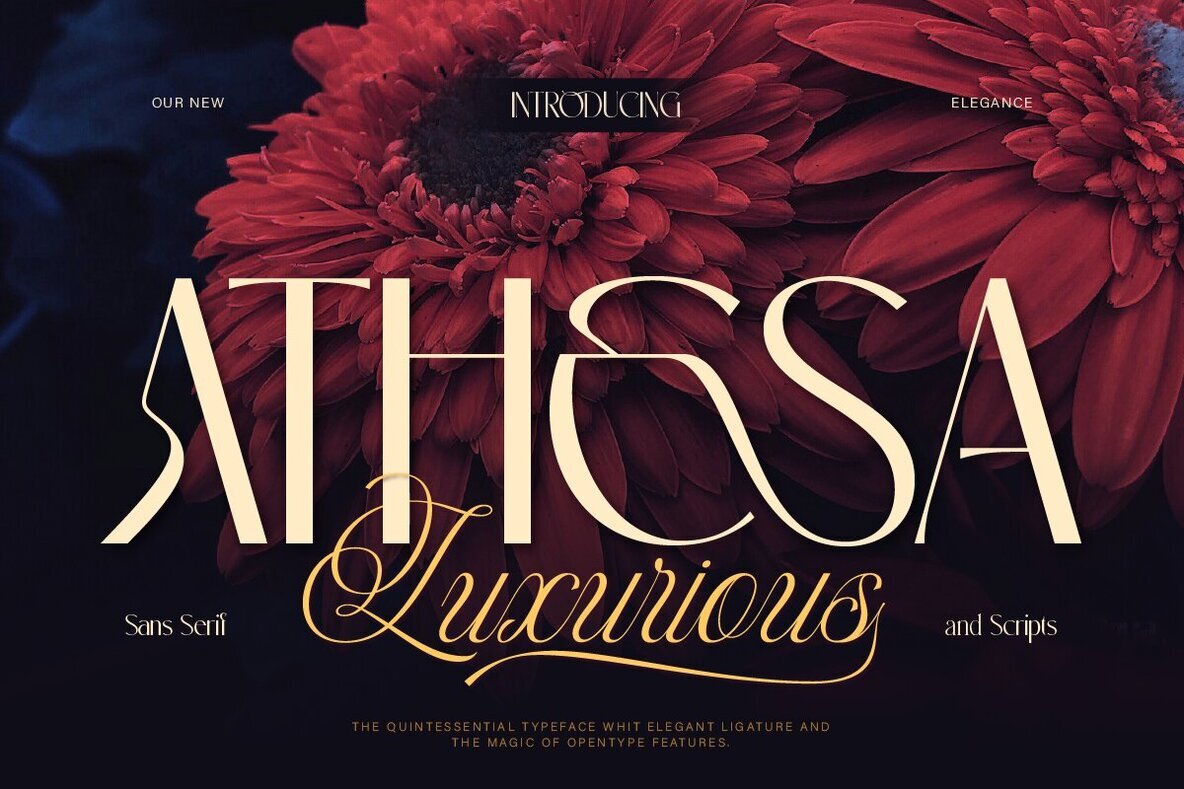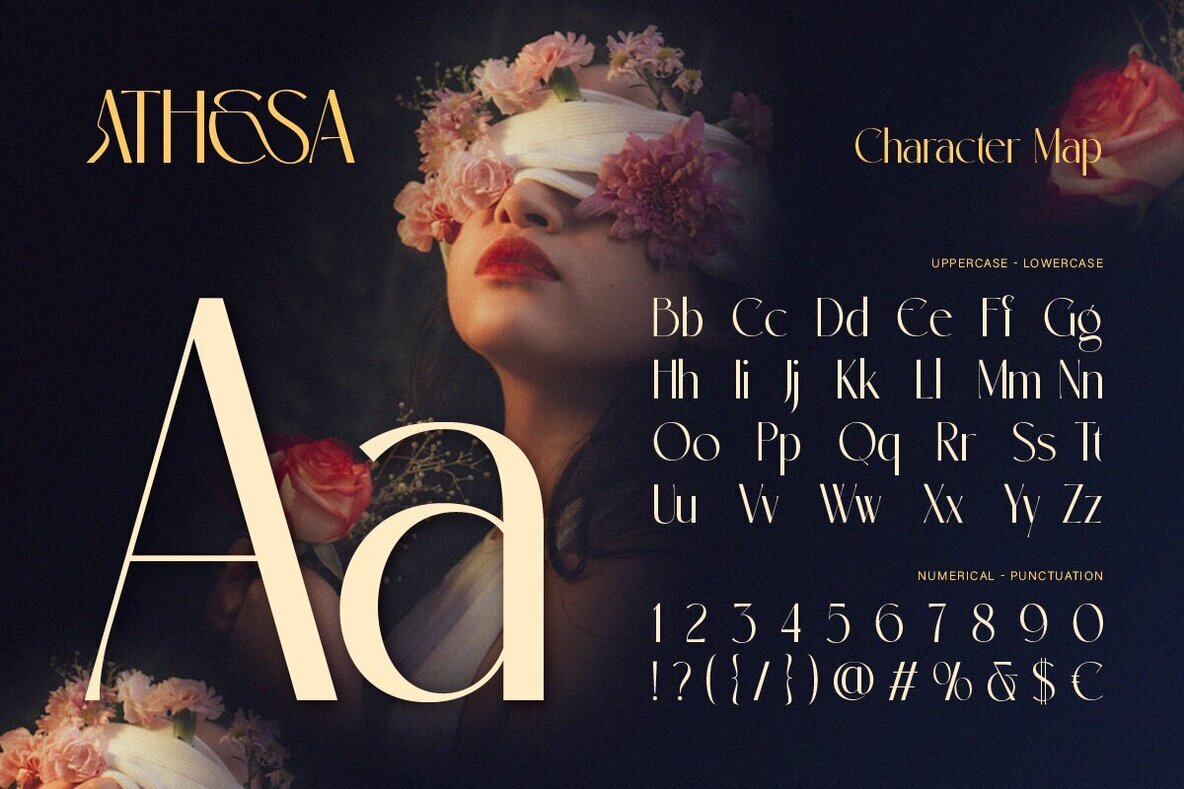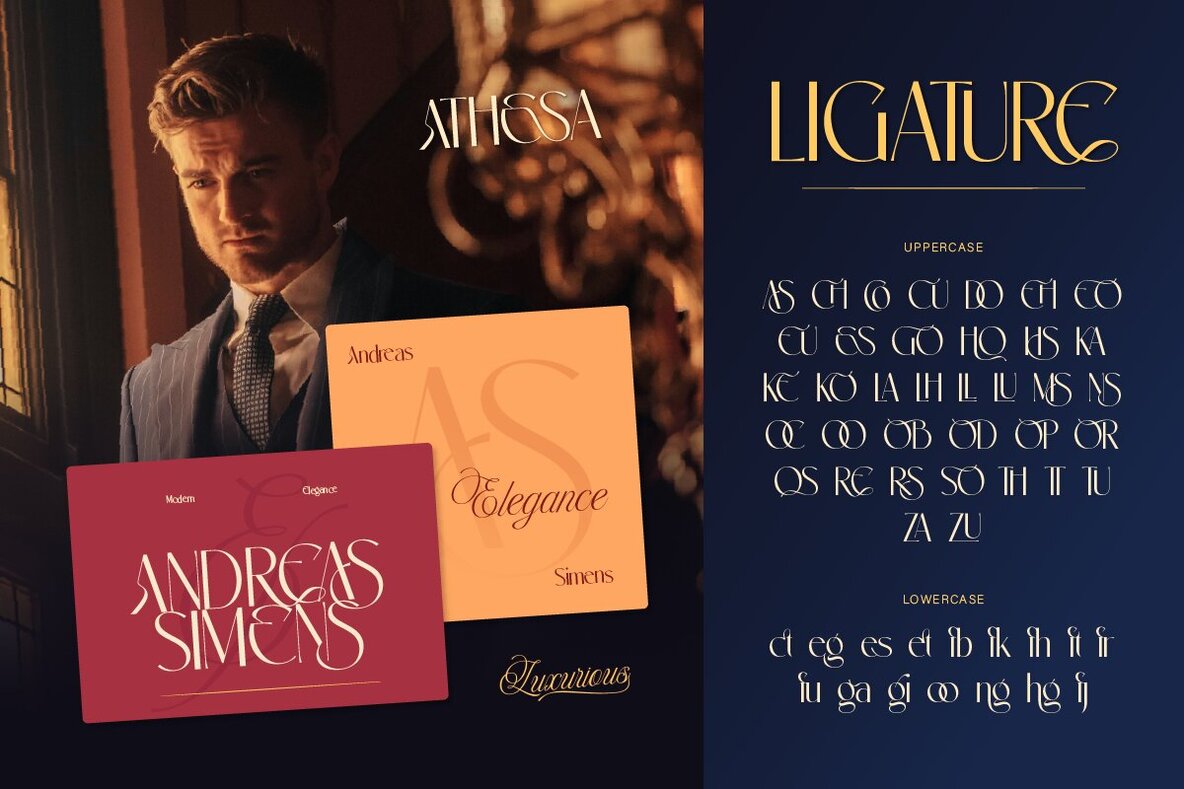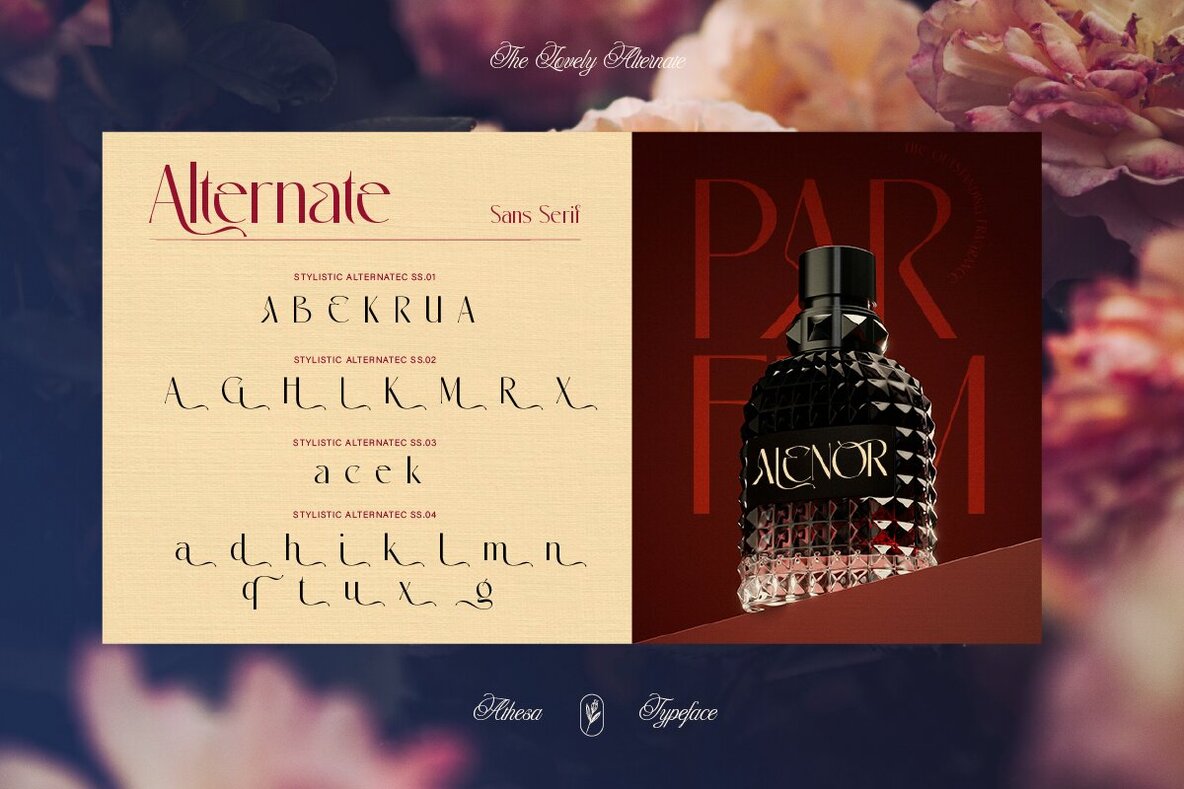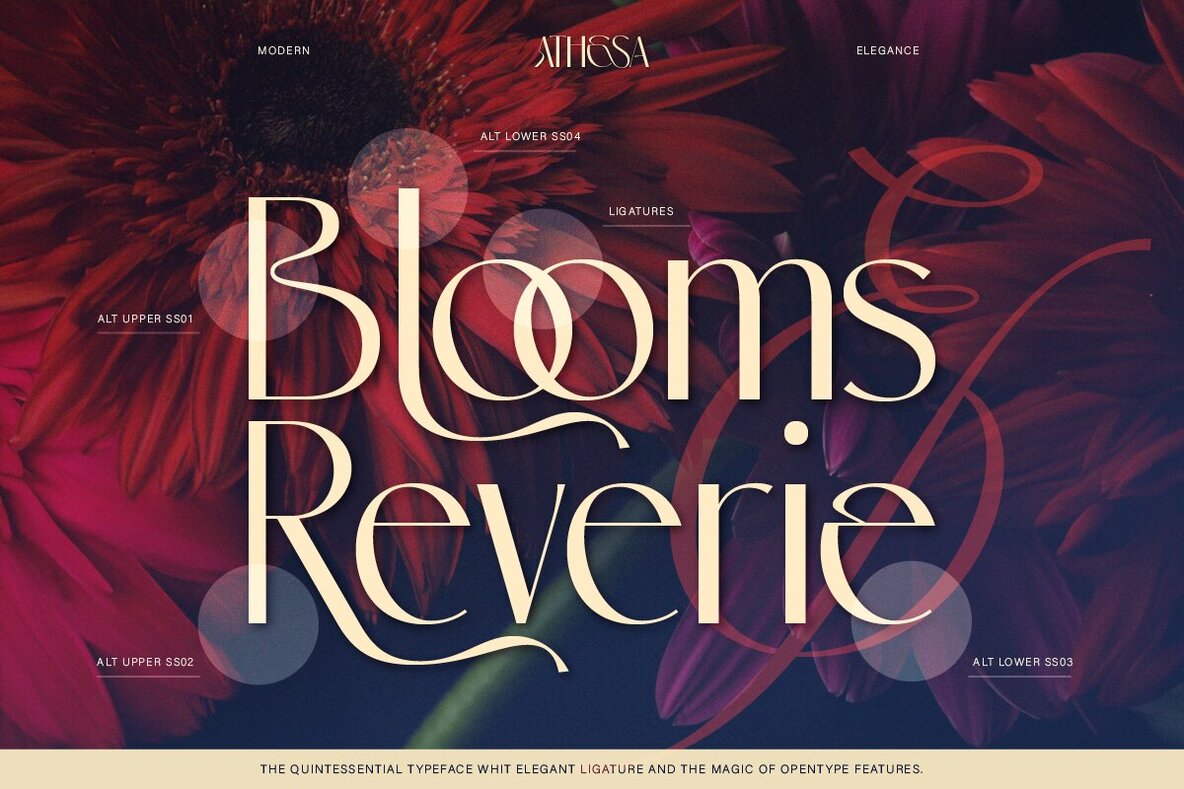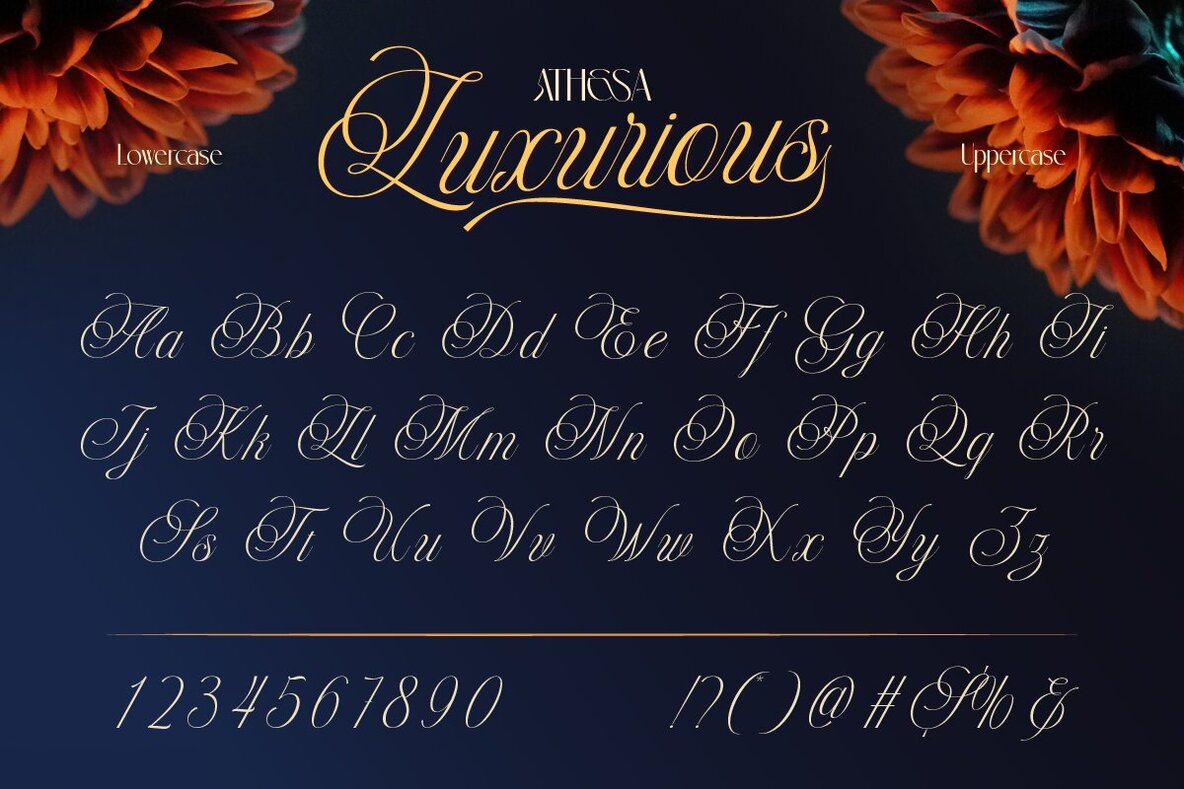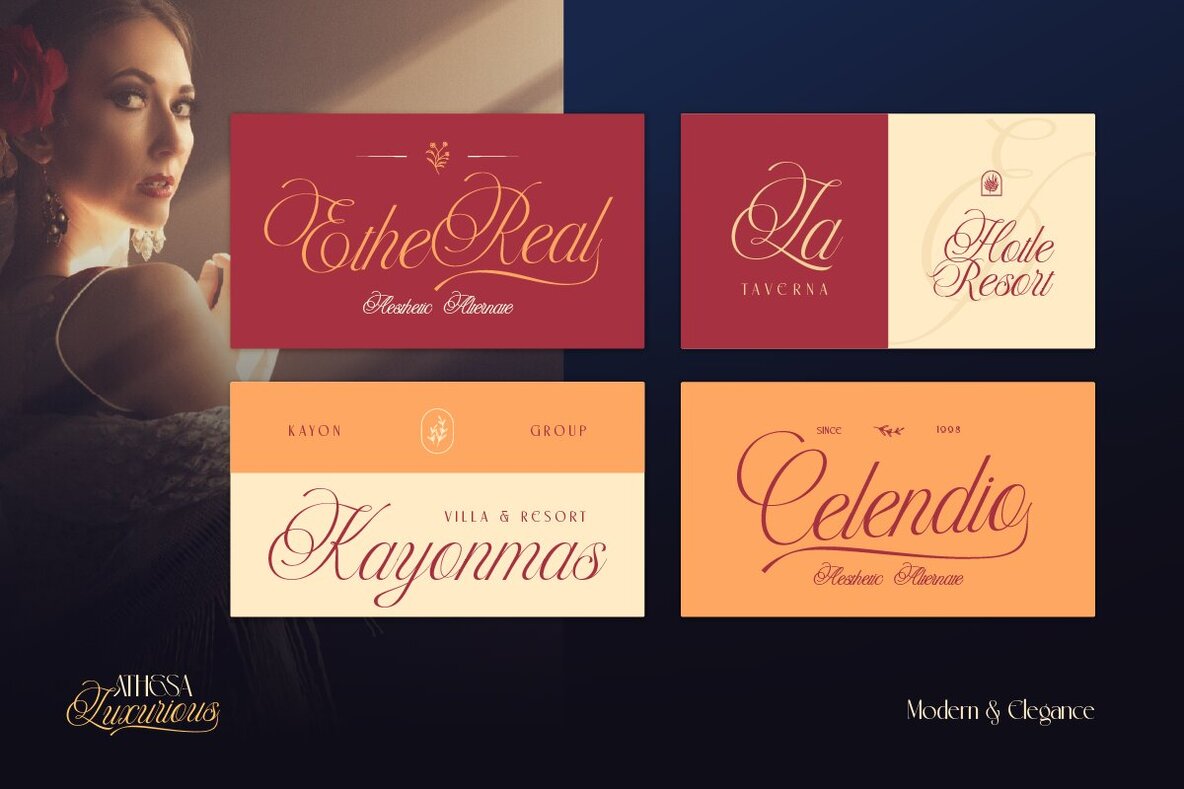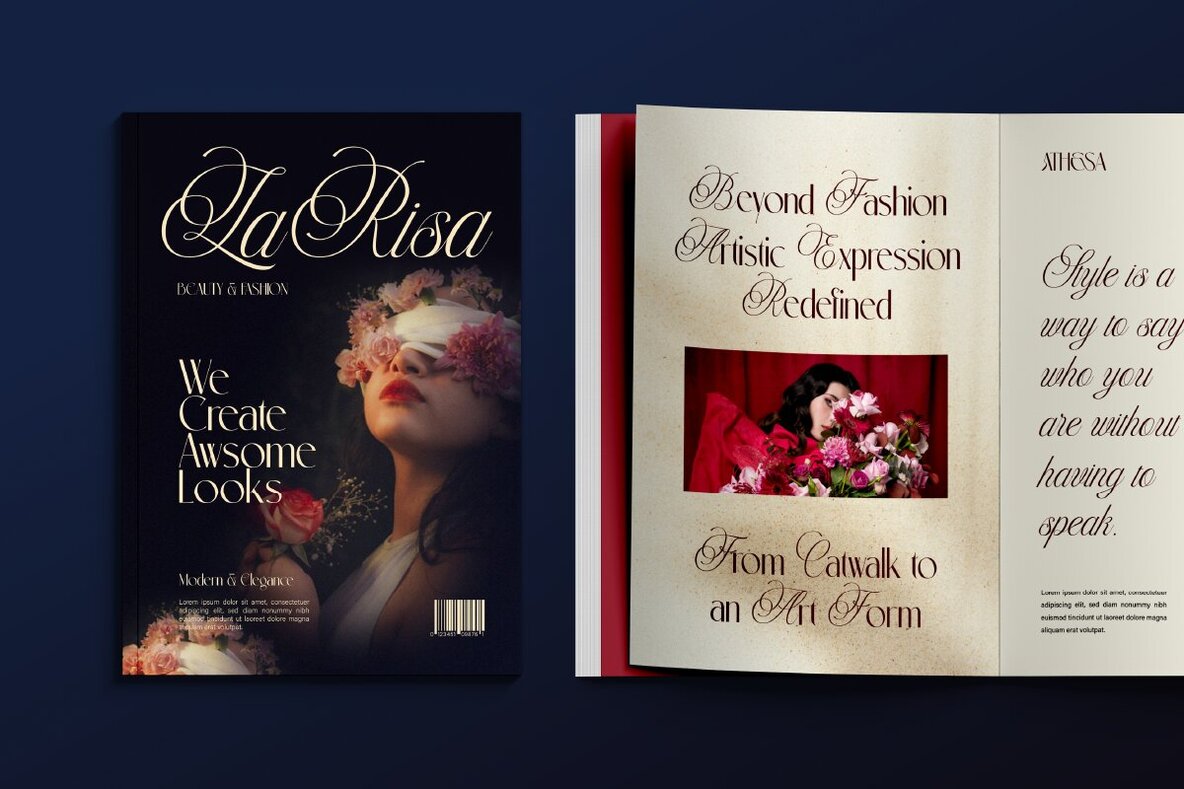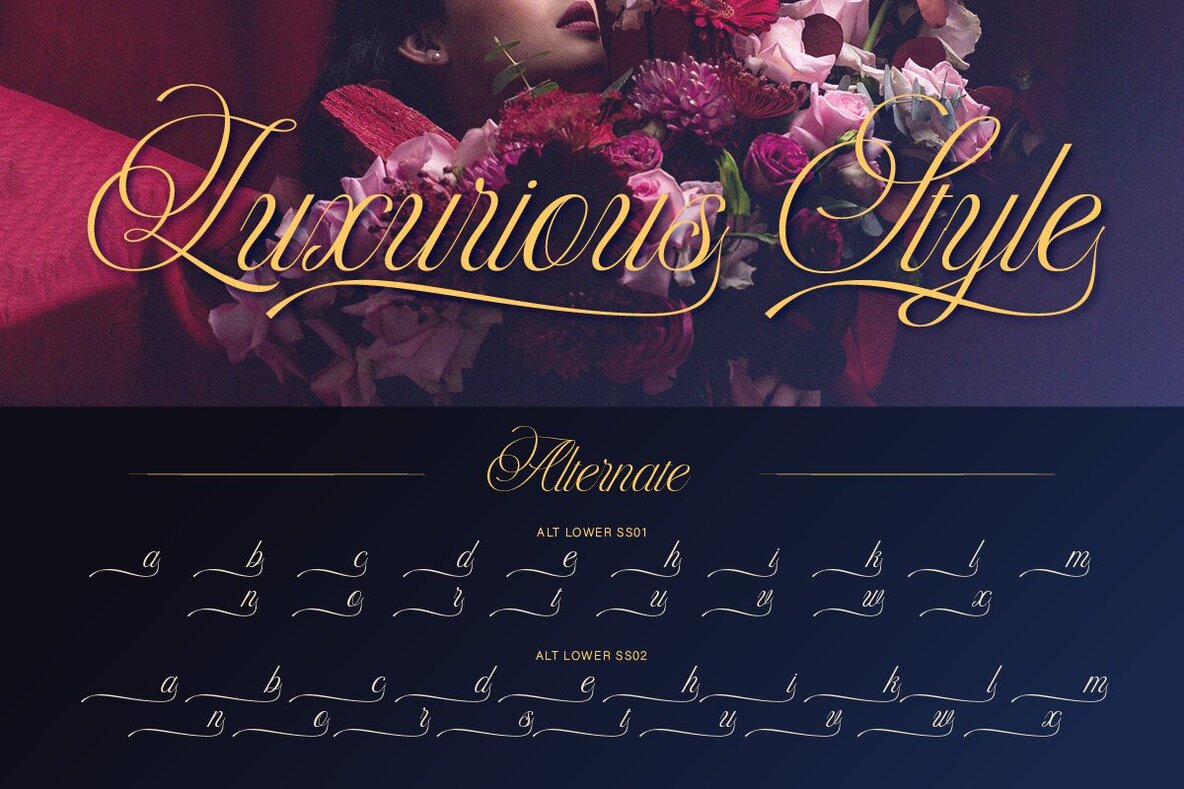
Athesa Luxurious Font
The Athesa Luxurious font duo combines an elegant sans serif with a romantic script, resulting in a harmonious visual contrast. This typeface enthralls with its luxury and timeless elegance, making it an ideal choice for high-end fashion branding, wedding invitations, and sophisticated product packaging. Crafted to exude style and personality, its stylish ligatures and alternates give each letter a poised flow.Athesa Luxurious: A Classy Font Duo